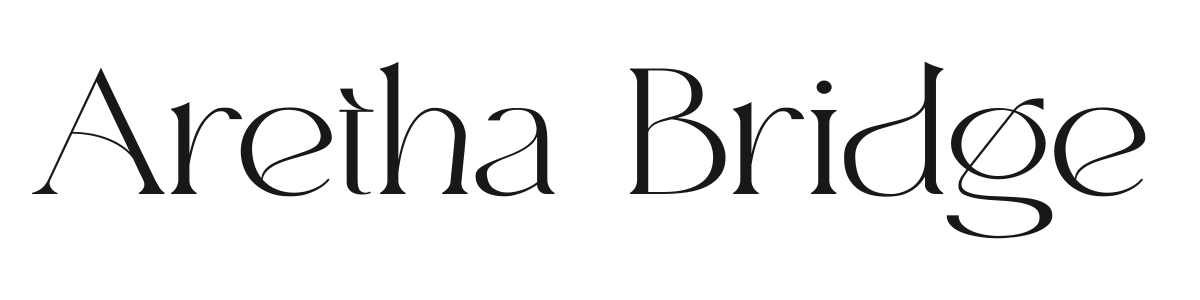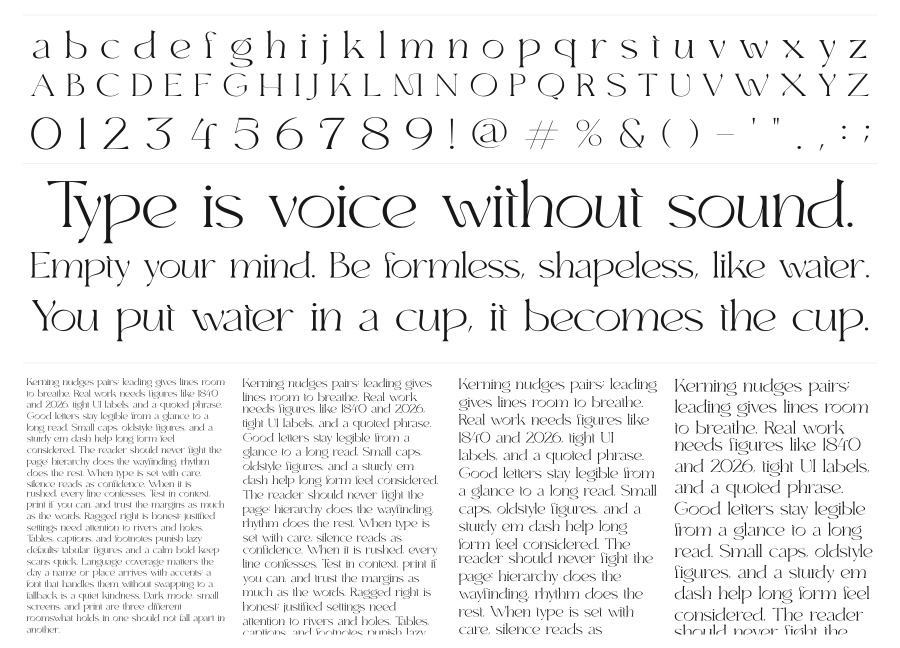
Aretha Bridge
by 177Studio · Website
Aretha Bridge is a high-contrast modern serif built on the extreme thin-to-thick drama of the Didone tradition, pushed toward contemporary lightness. Hairline serifs and spidery thin strokes contrast sharply against full-weighted stems, creating an airy elegance that reads instantly as luxury. It sits comfortably in fashion editorials, beauty branding, and wedding design.